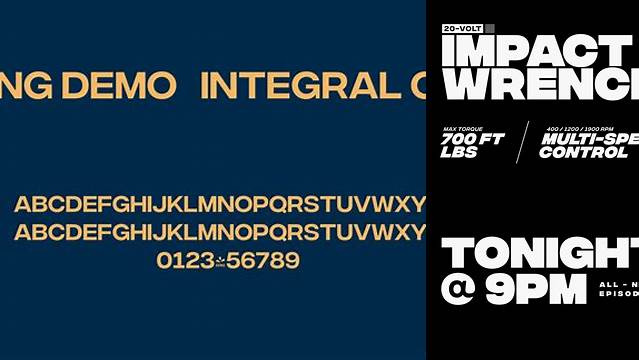
Unleashing the Power of Integral Font: A Fontspring Demo Deep Dive
Hey guys! Ever stumbled upon a font that just clicks? That's how I felt when I first saw Integral Font. It’s not just another typeface; it’s a statement. And today, we’re diving deep into the Fontspring demo of this amazing font, plus how you can snag it for free! In this comprehensive guide, we will explore everything you need to know about Integral Font, its features, benefits, and how to make the most of it in your projects. Integral Font stands out with its unique blend of modern aesthetics and classic readability, making it a versatile choice for a wide range of design applications. Whether you're working on a website, a print campaign, or a mobile app, understanding how to use Integral Font effectively can significantly enhance your project’s visual appeal. This article aims to provide you with the insights and practical tips you need to leverage Integral Font to its full potential. We’ll cover everything from its design origins and key characteristics to specific use cases and best practices for implementation. So, buckle up and let’s get started on this fontastic journey! This discussion will also shed light on the significance of font choice in design. Selecting the right font can make or break a project, influencing everything from readability and user experience to brand perception and emotional impact. Integral Font, with its balanced and contemporary design, offers a solution that is both functional and stylish. By understanding the nuances of this font, you can make informed decisions about its application and ensure that your designs communicate your intended message effectively. Furthermore, we will delve into the technical aspects of using Integral Font, including licensing, compatibility, and integration with various design tools. Knowing these details is crucial for ensuring a smooth workflow and avoiding any legal or technical issues down the line. Whether you are a seasoned designer or just starting out, this guide will provide you with the knowledge and resources you need to confidently incorporate Integral Font into your projects. So, stick around as we uncover the many facets of Integral Font and explore how it can transform your designs. Let’s get this font party started!
What Makes Integral Font So Special?
So, what is it about Integral Font that makes it so special? Well, for starters, it’s got this incredible modern vibe. It's clean, it’s crisp, and it just looks… fresh. But it’s not just about the looks, guys. The readability of Integral Font is top-notch. This is crucial, especially when you’re dealing with body text or any situation where your audience needs to read for an extended period. Think about it: a beautiful font that’s hard to read is like a stunning car that breaks down every five minutes – gorgeous, but ultimately frustrating. Integral Font nails both aesthetics and functionality, making it a winner in my book. One of the key elements that set Integral Font apart is its carefully crafted letterforms. Each character is designed with precision and attention to detail, ensuring a consistent and harmonious look across the entire typeface. This level of craftsmanship contributes to the font's overall elegance and readability, making it a pleasure to read whether on screen or in print. Furthermore, Integral Font boasts a versatile design that lends itself to a wide array of applications. From headlines and branding materials to body text and user interfaces, its adaptability makes it an invaluable asset in any designer’s toolkit. The font’s balanced proportions and clean lines ensure that it remains legible and impactful in various sizes and contexts. Another aspect of Integral Font that deserves attention is its personality. While it maintains a modern and professional feel, it also exudes a sense of warmth and approachability. This balance makes it suitable for projects that require both authority and friendliness, such as corporate communications, educational materials, and creative marketing campaigns. By understanding the nuances of Integral Font’s character, designers can effectively leverage its strengths to create designs that resonate with their target audience. And let's not forget about the technical considerations. Integral Font is designed to be highly compatible with various software platforms and devices, ensuring a seamless user experience across different mediums. This compatibility extends to web browsers, mobile devices, and desktop applications, making it a reliable choice for projects that span multiple platforms. In addition, Integral Font is available in multiple weights and styles, providing designers with a comprehensive range of options to suit their specific needs. Whether you need a bold and impactful headline or a delicate and understated body text, Integral Font has you covered. This versatility makes it a practical choice for projects that require a consistent yet varied typographic palette.
Using Integral Font in Your Projects: Tips and Tricks
Okay, so you’ve got Integral Font, you’ve played around with the demo, now what? Let’s talk about actually using this font in your projects. First off, think about the context. Integral Font works beautifully for headlines, but it’s also surprisingly versatile for body text. The key is to use it thoughtfully. Don’t just slap it on everything! Experiment with different weights and styles to create visual hierarchy. Use it for a logo, a website, a presentation – the possibilities are endless! The versatility of Integral Font makes it a valuable asset in any design project, but knowing how to use it effectively is crucial for maximizing its impact. One of the key considerations is the context in which the font will be used. Integral Font’s clean and modern aesthetic makes it well-suited for a wide range of applications, but it’s important to tailor your approach to the specific needs of your project. For headlines and titles, Integral Font’s bolder weights can be used to create a strong and impactful visual statement. The font’s clear and legible letterforms ensure that your message is communicated effectively, even at large sizes. When using Integral Font for body text, it’s important to choose a weight and size that are comfortable to read. The font’s balanced proportions and consistent spacing contribute to its readability, but it’s still important to consider factors such as line height and letter spacing to optimize the reading experience. Experimenting with different weights and styles is essential for creating visual hierarchy in your designs. By using a combination of bold and regular weights, you can draw attention to key elements and guide the viewer’s eye through the page. This technique is particularly effective for creating clear and organized layouts. Integral Font also works well in combination with other fonts. When pairing Integral Font with other typefaces, it’s important to choose fonts that complement its style and personality. A classic serif font can create an elegant contrast with Integral Font’s modern sans-serif design, while a clean and simple sans-serif can create a cohesive and harmonious look. Consider the overall tone and message of your project when choosing font pairings. Integral Font’s versatility extends to its use in various mediums, including print, web, and digital applications. Whether you’re designing a brochure, a website, or a mobile app, Integral Font can be used to create a consistent and professional look. Its compatibility with different platforms and devices ensures that your designs will render correctly across a range of screens and devices.
In Conclusion: Integral Font – Your New Go-To Typeface?
So, there you have it! A deep dive into the world of Integral Font. From its modern aesthetic to its free download option, this font is a powerhouse. I personally think it’s a fantastic addition to any designer’s toolkit. It’s versatile, it’s readable, and it just looks darn good. If you’re looking for a font that’s both stylish and functional, give Integral Font a try. You might just find your new go-to typeface! As we’ve explored, Integral Font offers a compelling combination of design excellence, versatility, and accessibility. Its clean lines, balanced proportions, and modern aesthetic make it a valuable asset for a wide range of design projects. Whether you’re working on branding, web design, print materials, or digital applications, Integral Font can help you create a polished and professional look. The availability of a free version, Integral CF, makes it even more appealing, allowing you to experiment with the font and explore its capabilities without any financial commitment. This is a great opportunity for students, hobbyists, and designers who are looking to expand their typographic palette. For commercial projects, investing in a license ensures that you have the legal rights to use Integral Font and supports the ongoing development of the typeface. Fontspring provides a user-friendly platform for purchasing licenses, with clear and transparent terms. Ultimately, the decision of whether or not to make Integral Font your new go-to typeface depends on your specific needs and preferences. However, based on its merits and versatility, it’s certainly a strong contender. By taking advantage of the Fontspring demo, exploring the free version, and experimenting with its various styles and weights, you can determine if Integral Font is the right fit for your design workflow. In conclusion, Integral Font stands out as a remarkable typeface that combines elegance, functionality, and accessibility. Its modern design and versatile nature make it a valuable addition to any designer’s toolkit, while its free version offers a fantastic opportunity for exploration and experimentation. Whether you’re a seasoned professional or just starting out, Integral Font is definitely worth considering for your next project. So go ahead, give it a try, and see how it can transform your designs!